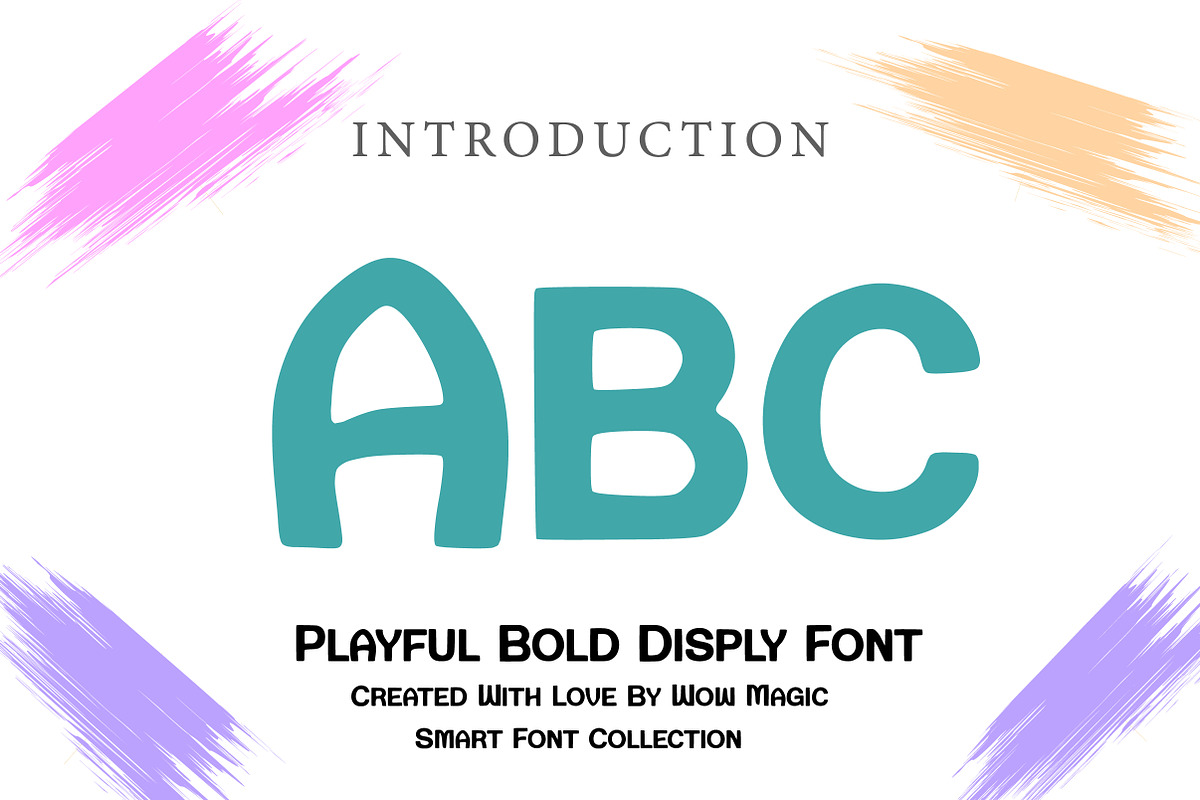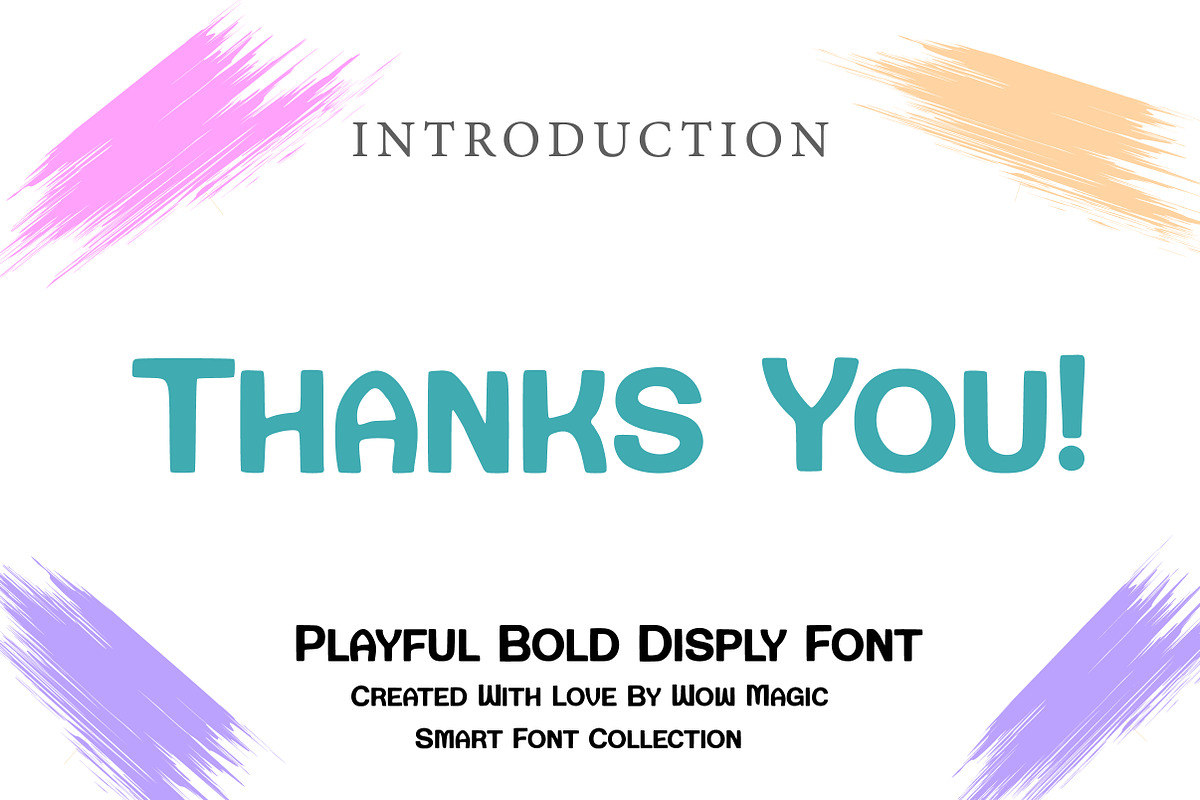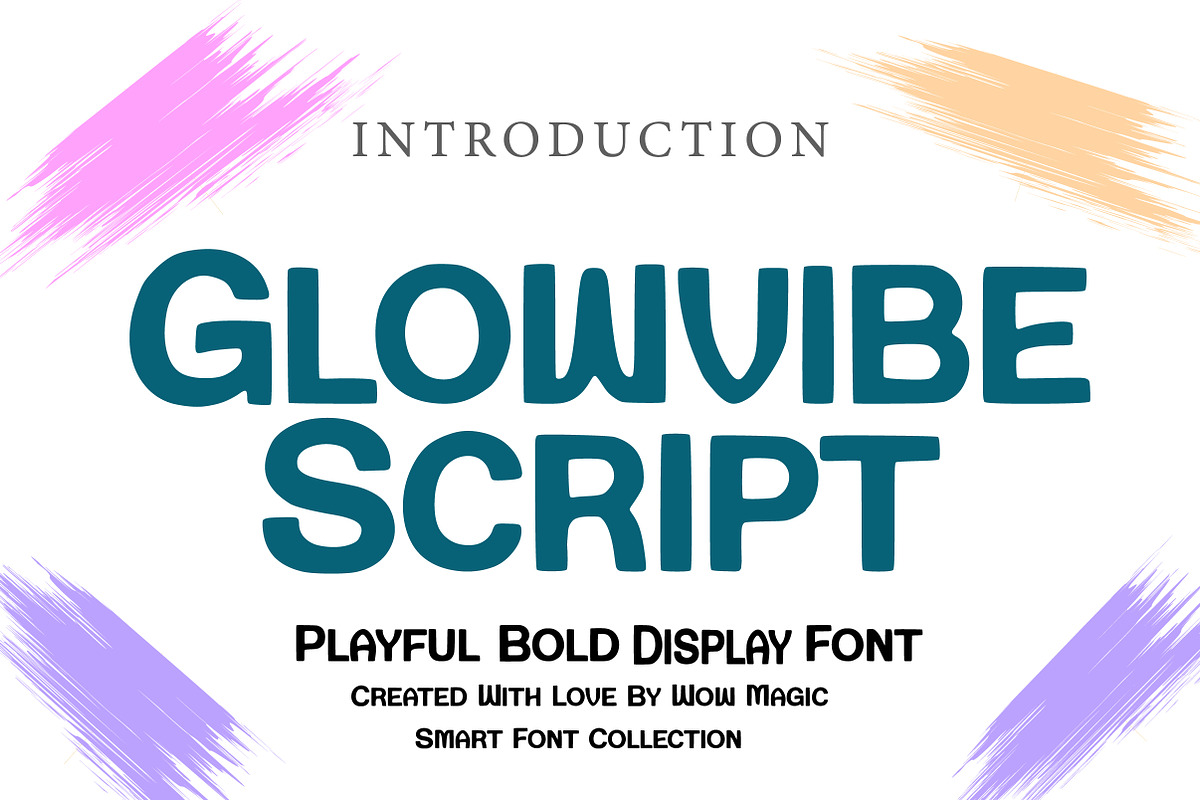
GlowVibe Script
Glowvibe Script is a bold and smooth handwritten script font designed to bring warmth, personality, and modern elegance to your designs. With its flowing curves, soft edges, and confident strokes, this typeface captures the natural movement of real handwriting while maintaining a clean and professional finish.
The balanced letterforms and friendly character shapes make it perfect for branding, logos, social media graphics, packaging, quotes, invitations, and lifestyle designs. Glowvibe Script blends contemporary style with a subtle retro charm, making it versatile for both digital and print projects.
Whether you're creating a signature logo, stylish headline, or eye-catching Instagram post, Glowvibe Script delivers a vibrant, smooth, and expressive typographic vibe.